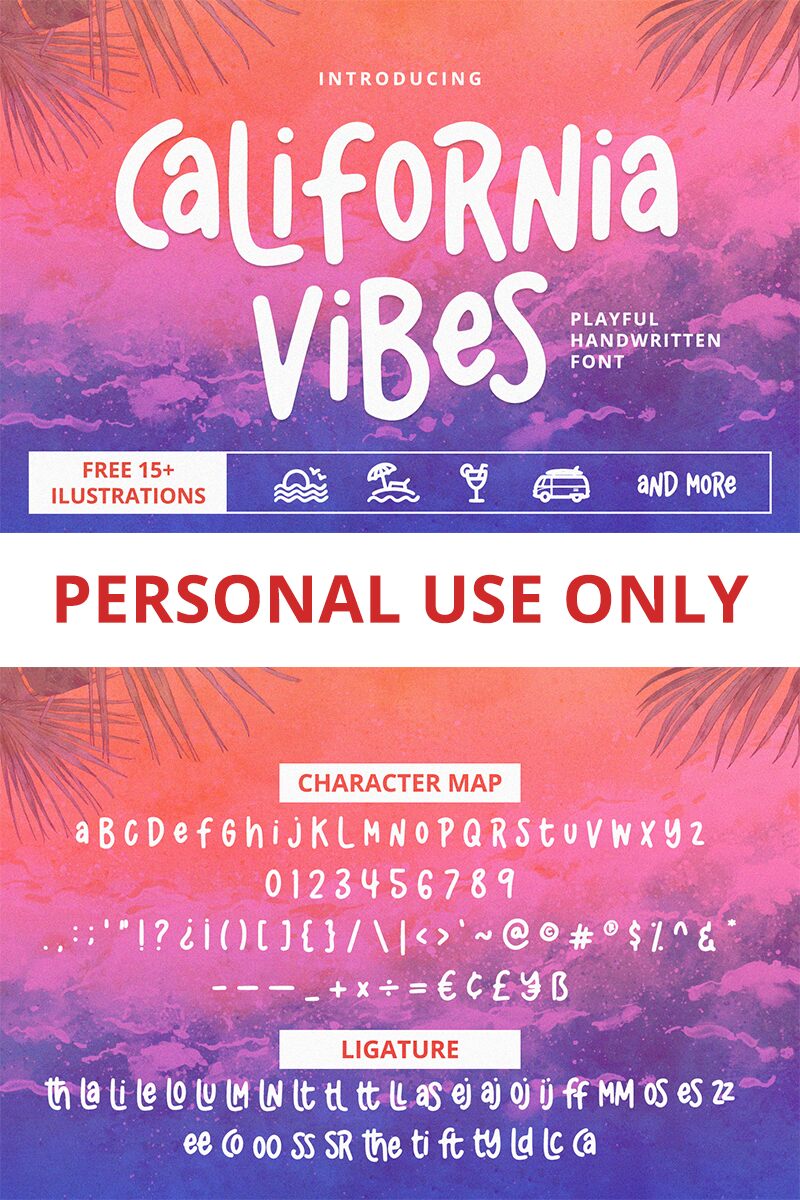
California Vibes font family captures the cool, laid-back vibes and sunshine-filled beaches of California in a playful, handwritten script style. Designed by Alpaprana Studio, this free font family includes two distinctive font styles that speak directly to a modern audience. Casual, energetic, informal, modern, relaxed, approachable, and fun, California Vibes is here to brighten your designs! Wavy and relaxed, it switches effortlessly between classic and modern with its handwriting element and clean lines.
Perfect for use in projects that need their typographs to stand out, this font will draw eyes and hold them there! California Vibes is excellent for use in greeting cards, business cards, digital invitations, digital quotes, gift cards, product packaging, or promotional content all depending on your needs. Whatever you choose to do with them, California Vibes is guaranteed to satisfy you with its classic yet modern combination.